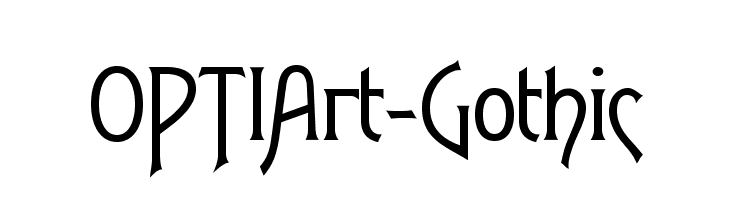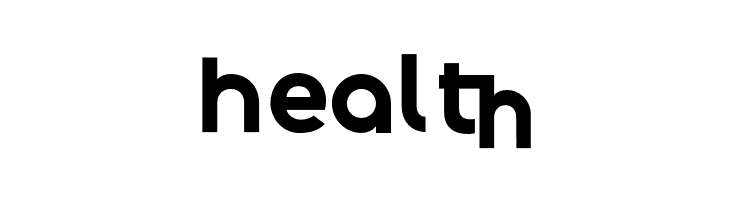
A playful, bold font with a unique shadow effect and cartoonish style.
A playful, retro-inspired font with tall, narrow characters and whimsical curves.
A bold, expressive script font with elegant, flowing cursive letters.
A bold, dynamic script font with fluid, connected letterforms.
A modern, ultra-light sans-serif font with clean lines and excellent readability.
An elegant serif font with refined curves and sharp serifs, perfect for traditional and sophisticated designs.
A dot matrix style font with characters enclosed in circles, offering a retro digital aesthetic.
A bold, playful script font with thick, rounded strokes and a whimsical style.